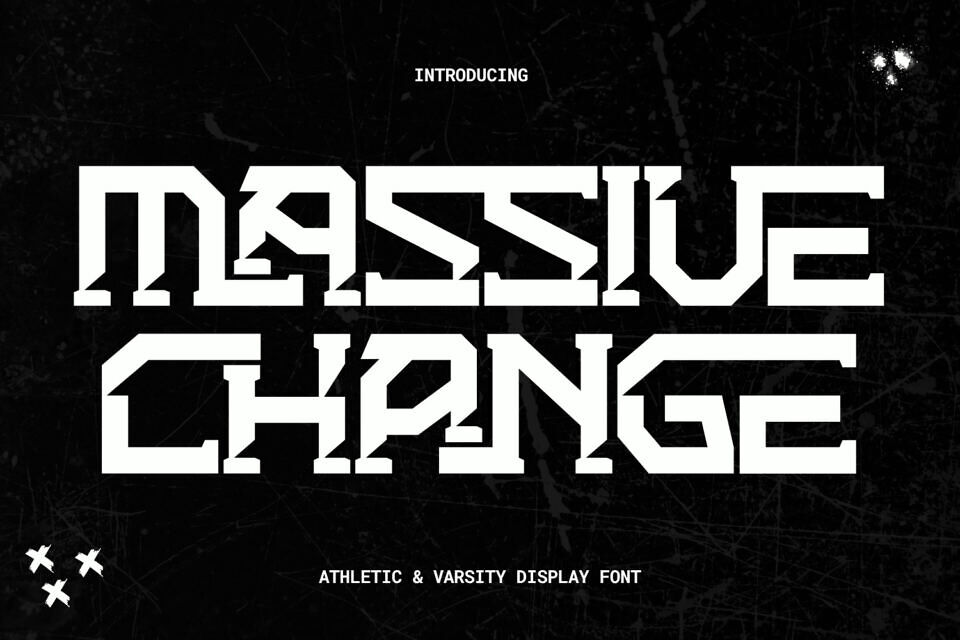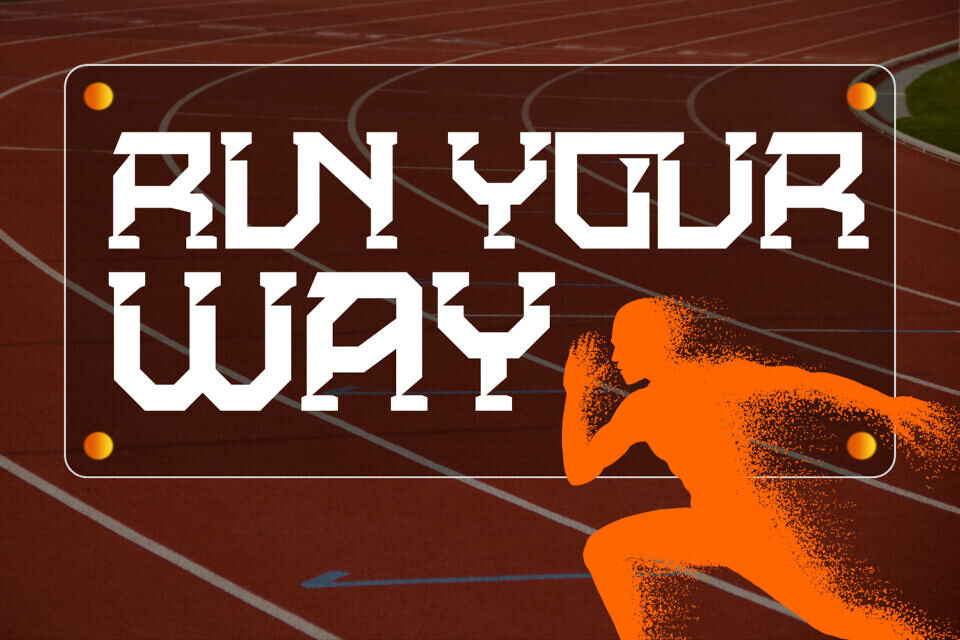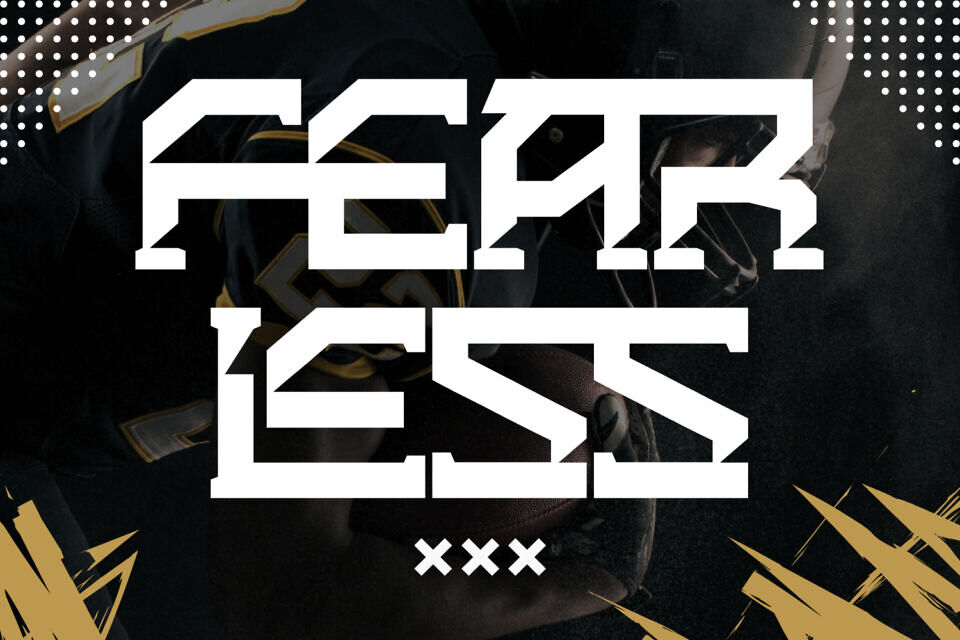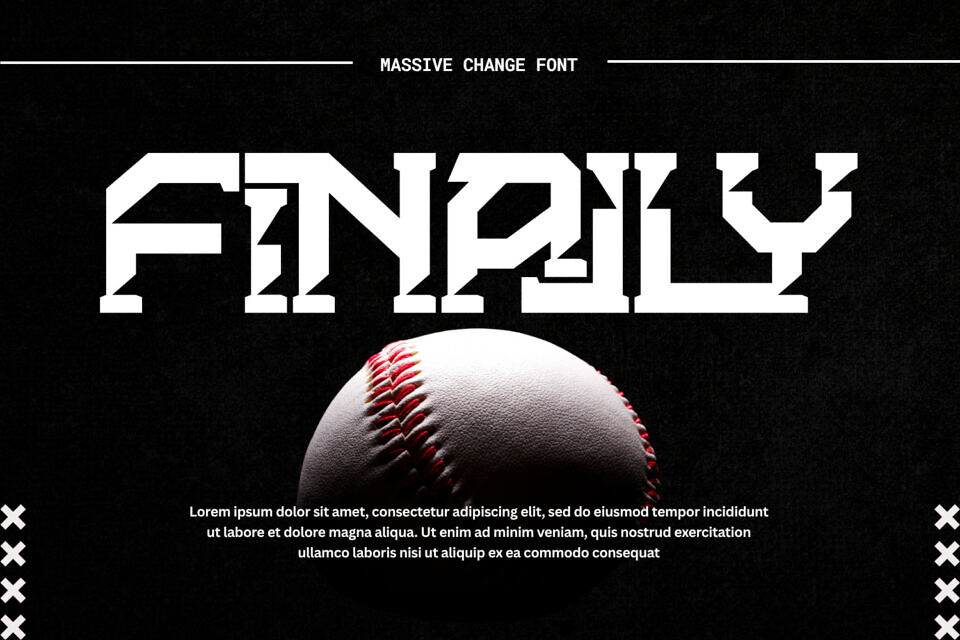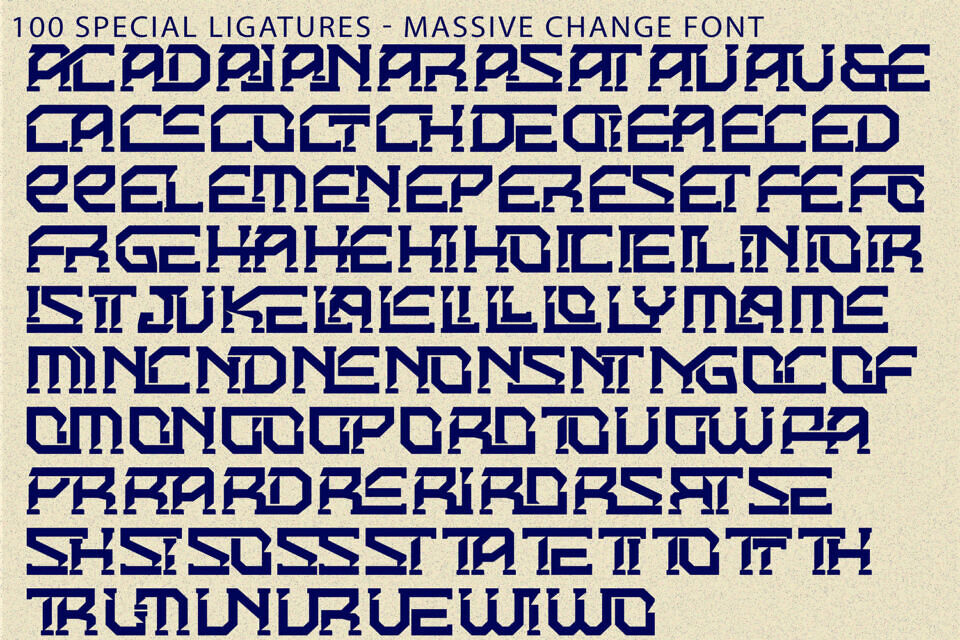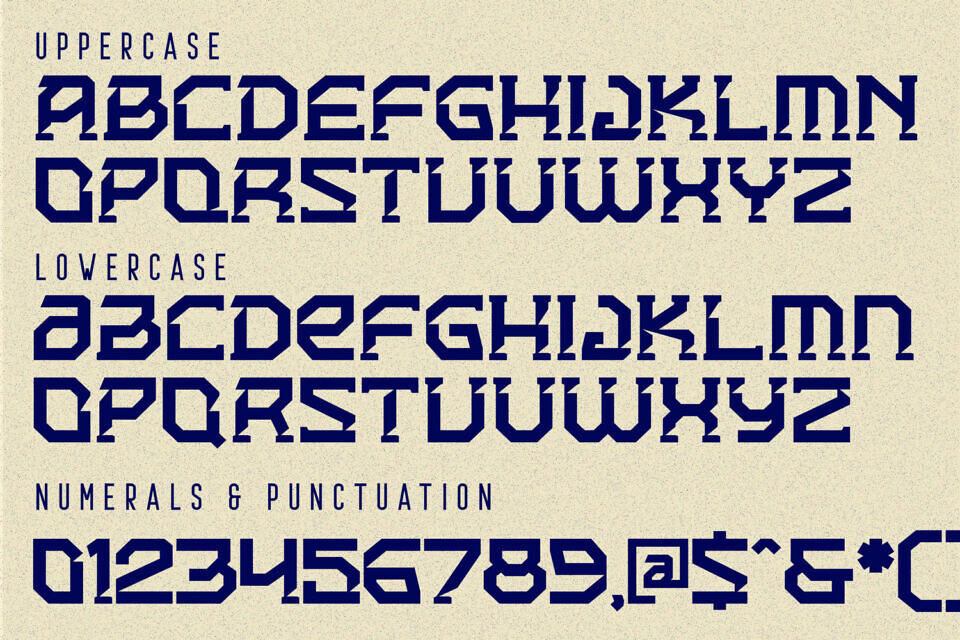
Massive Change Font
Massive Change is a bold industrial slab serif display font designed to make a lasting impression. Featuring heavy slab serifs, geometric letterforms, sharp angular details, and a solid architectural structure, this typeface captures the strength of vintage wood type while introducing a clean contemporary edge. Every character is carefully crafted to create a bold, confident look with exceptional readability and striking visual impact.
Built for powerful branding and standout typography, Massive Change is ideal for logos, sports branding, varsity apparel, posters, packaging, signage, beer labels, outdoor brands, western-inspired designs, gaming graphics, album covers, editorial headlines, and merchandise.